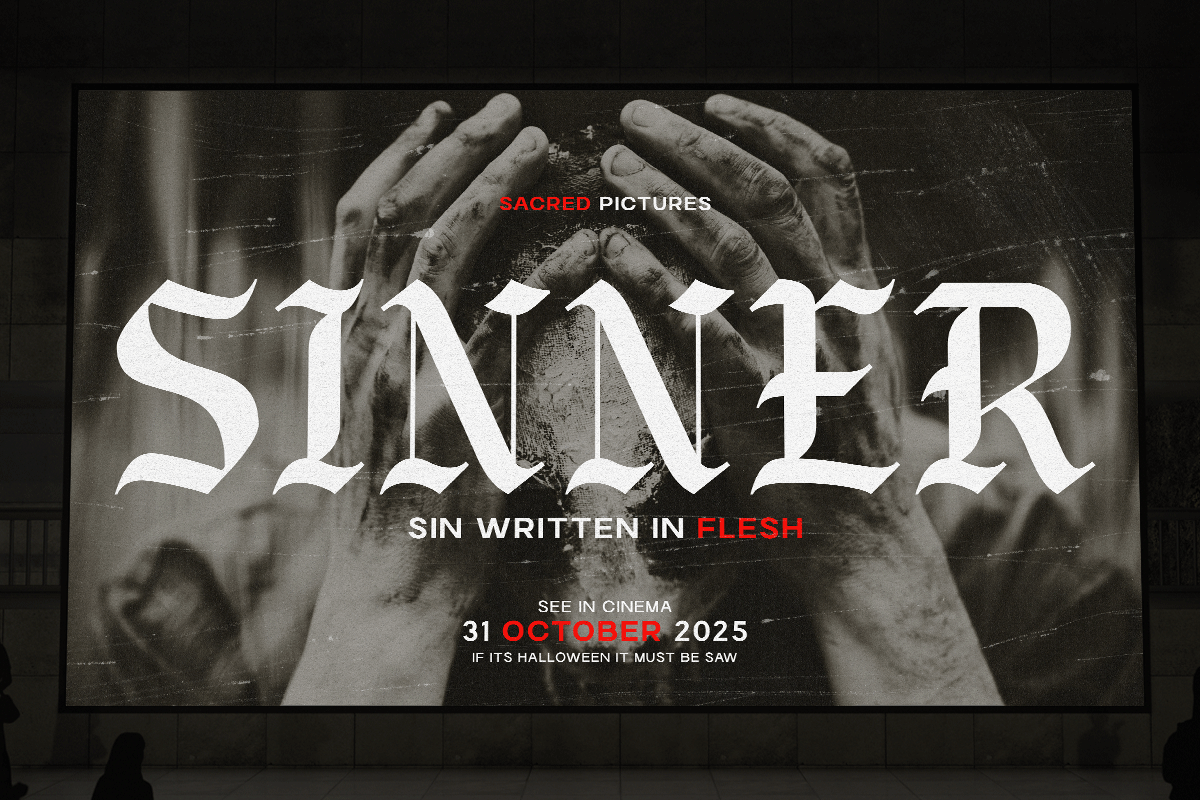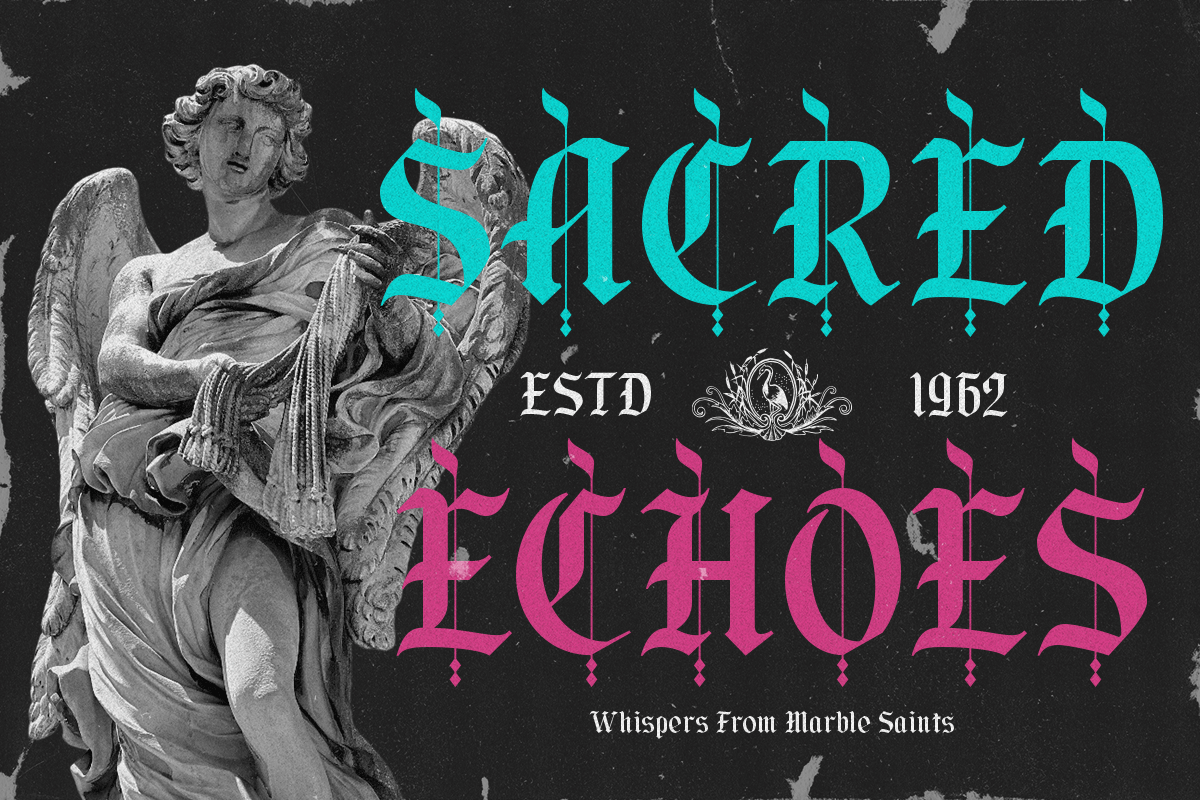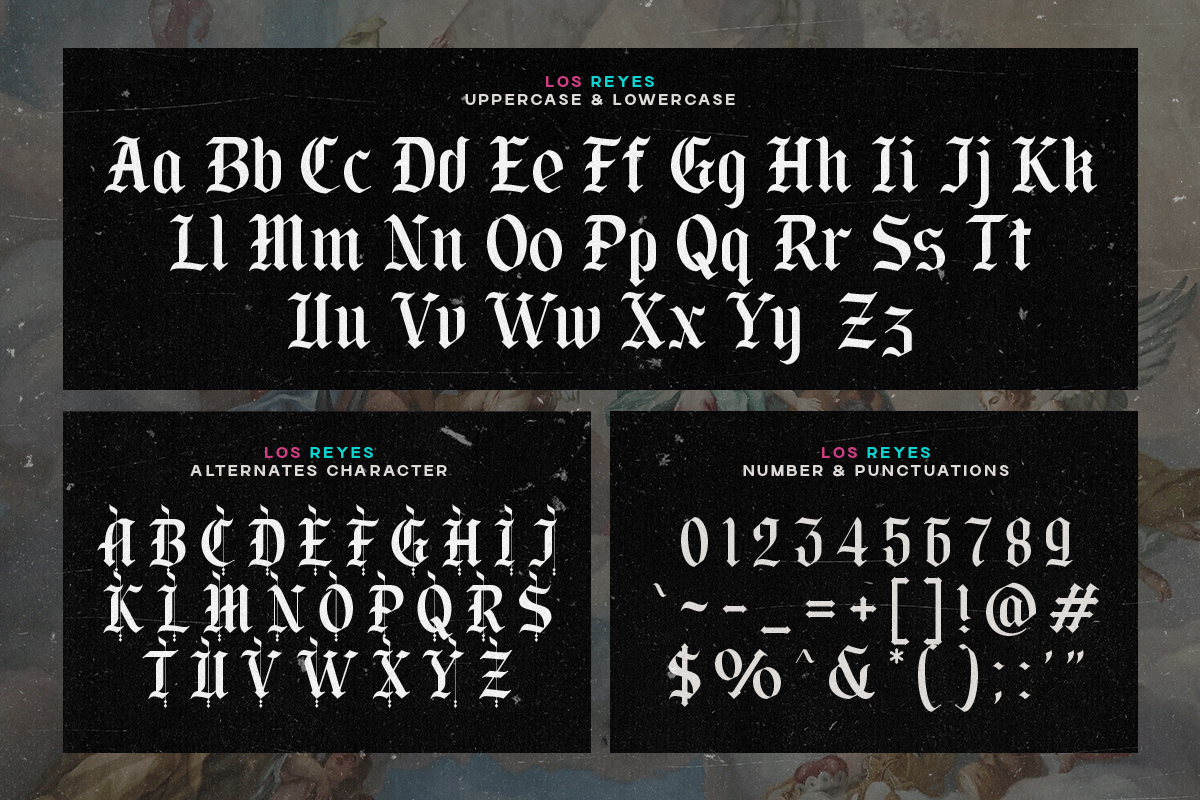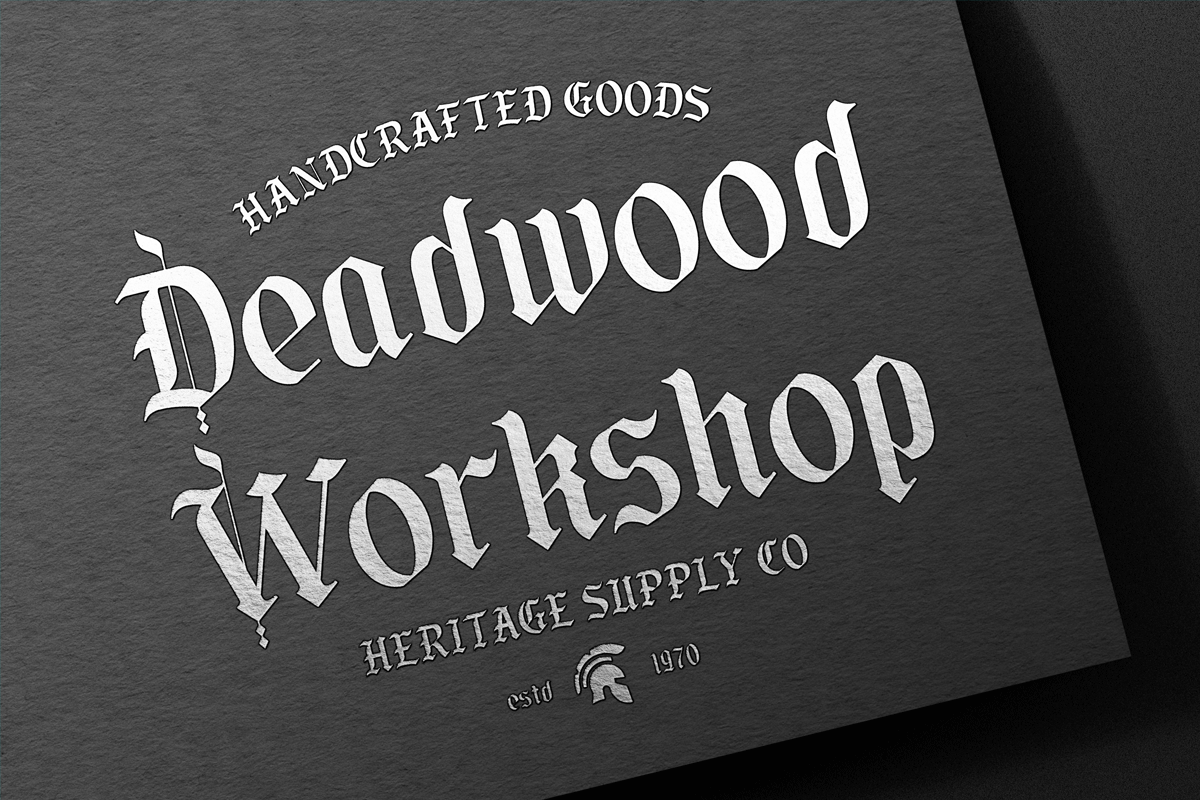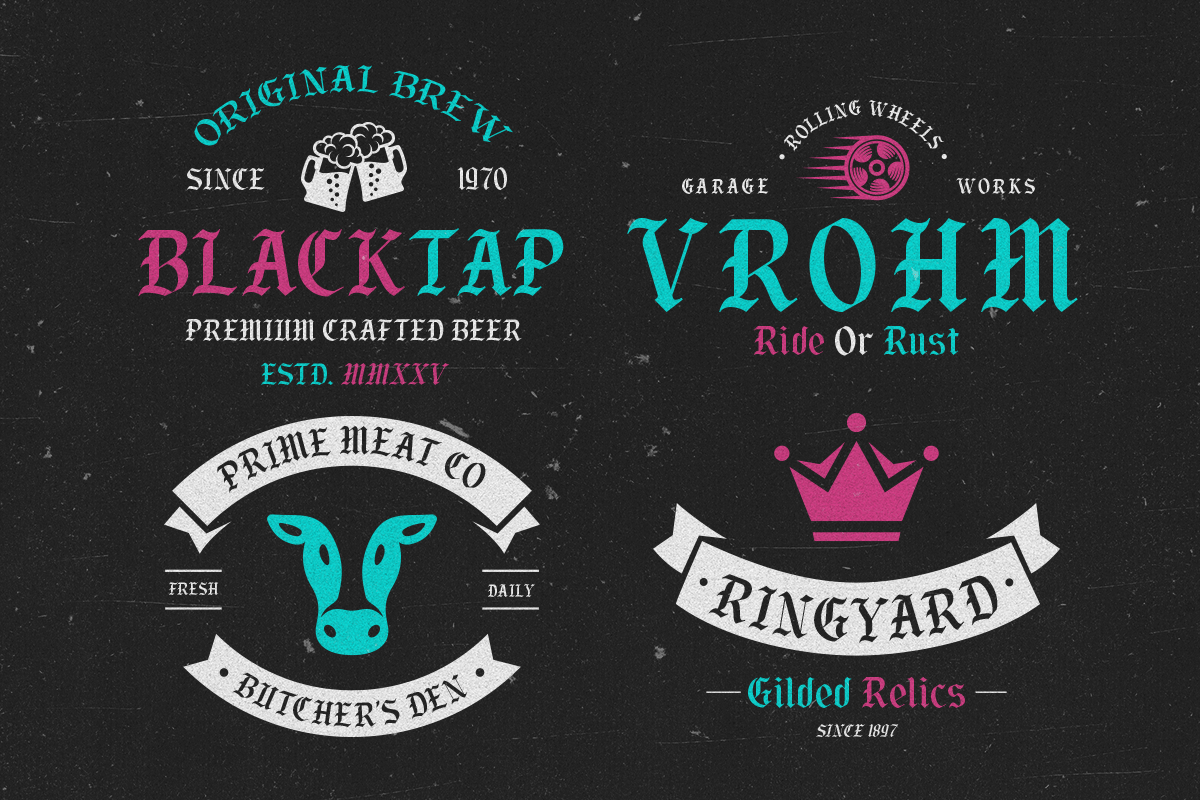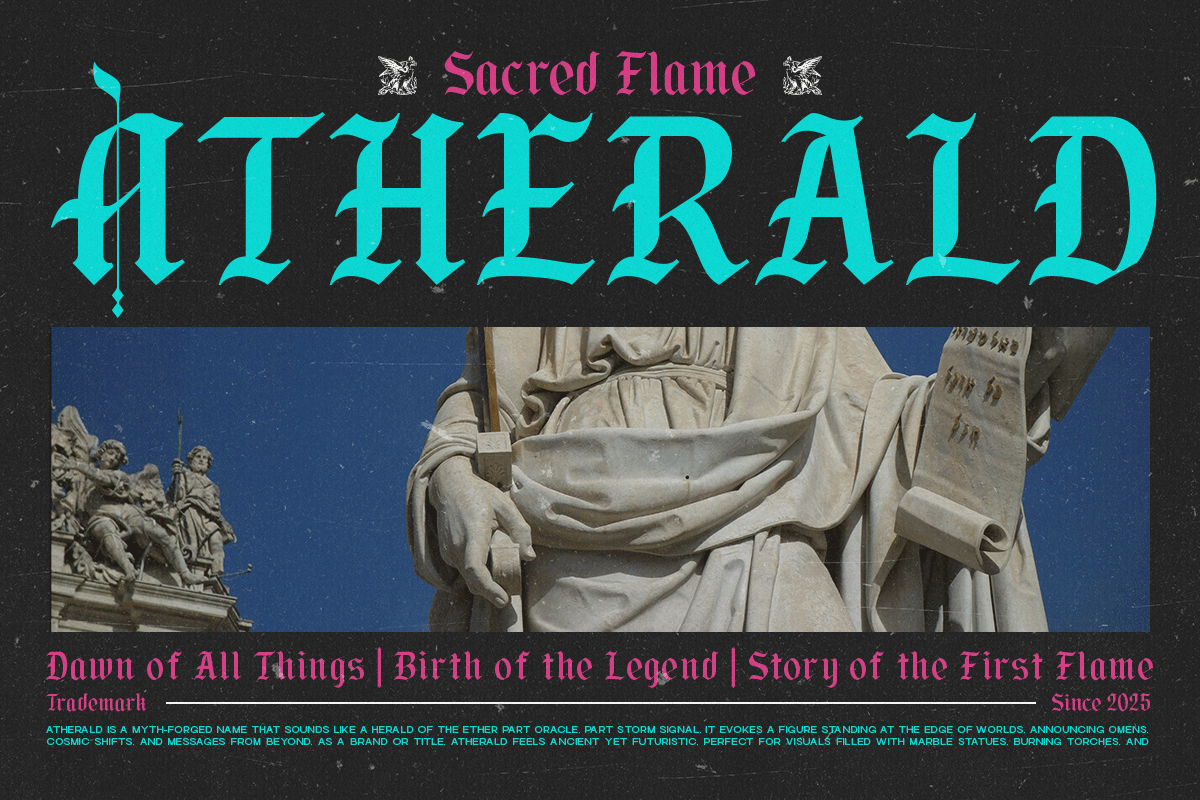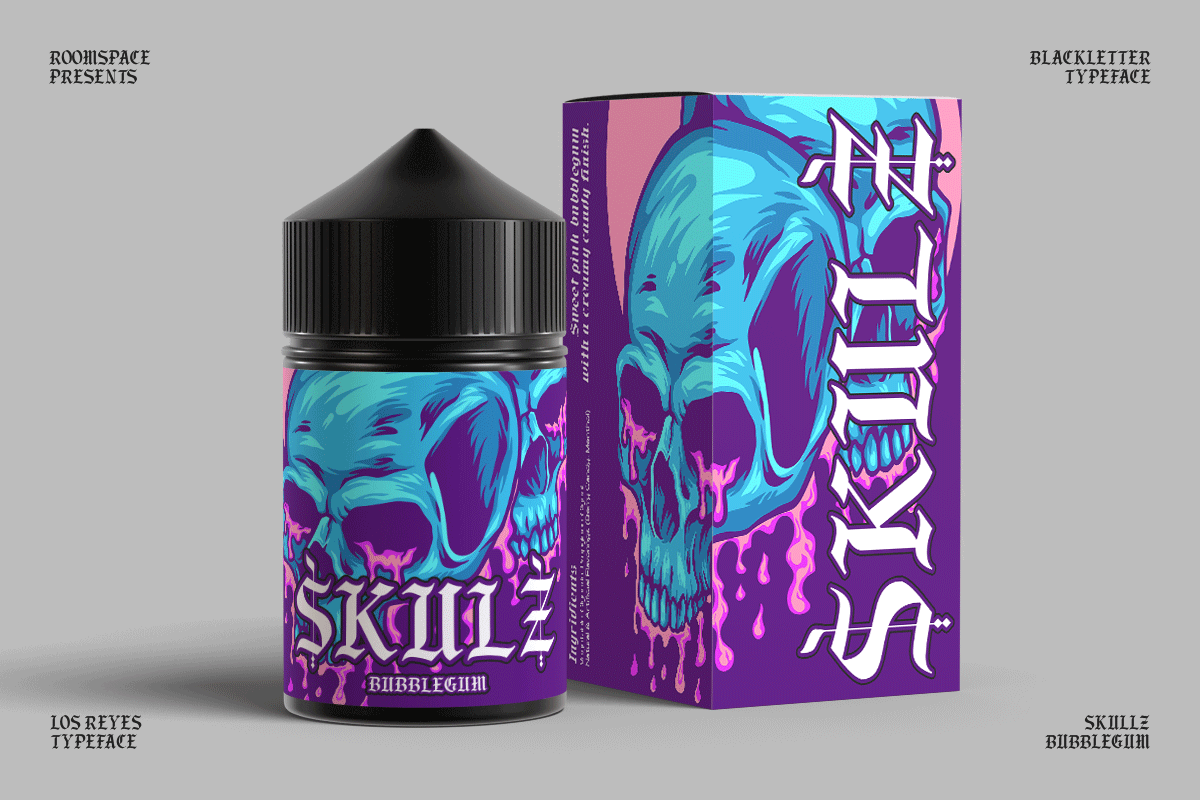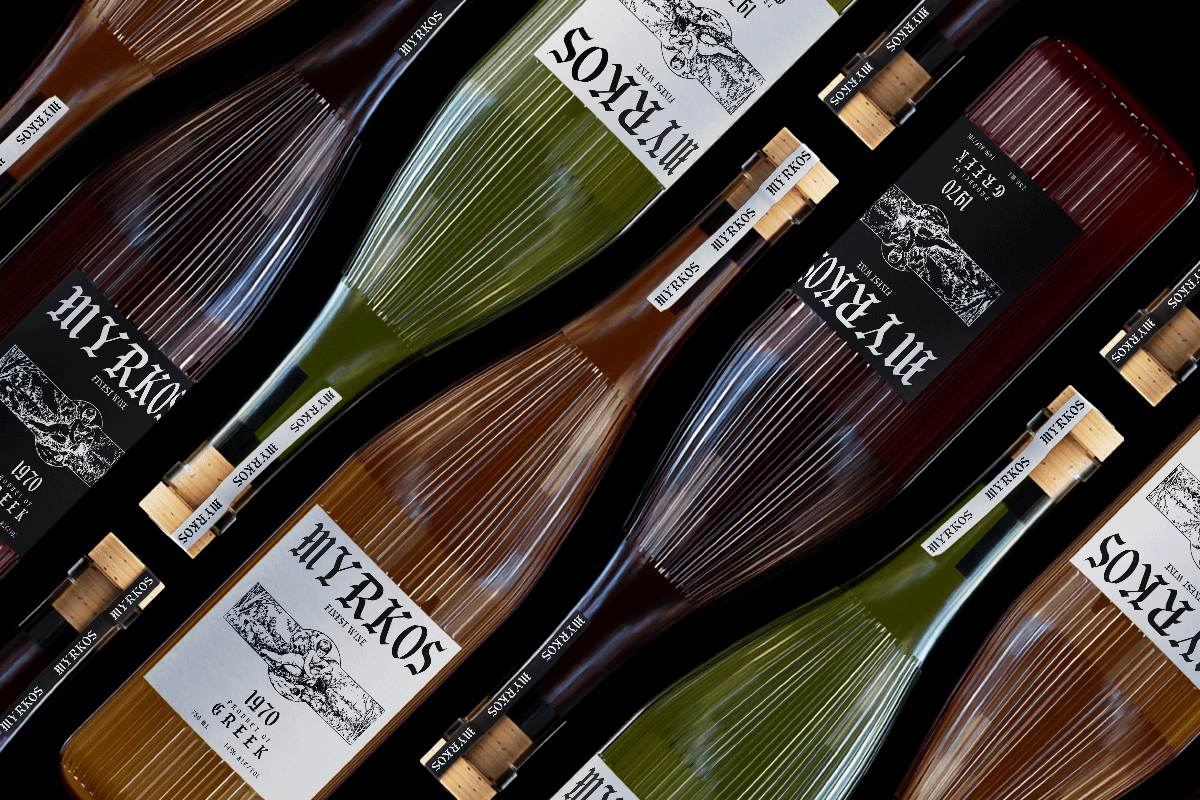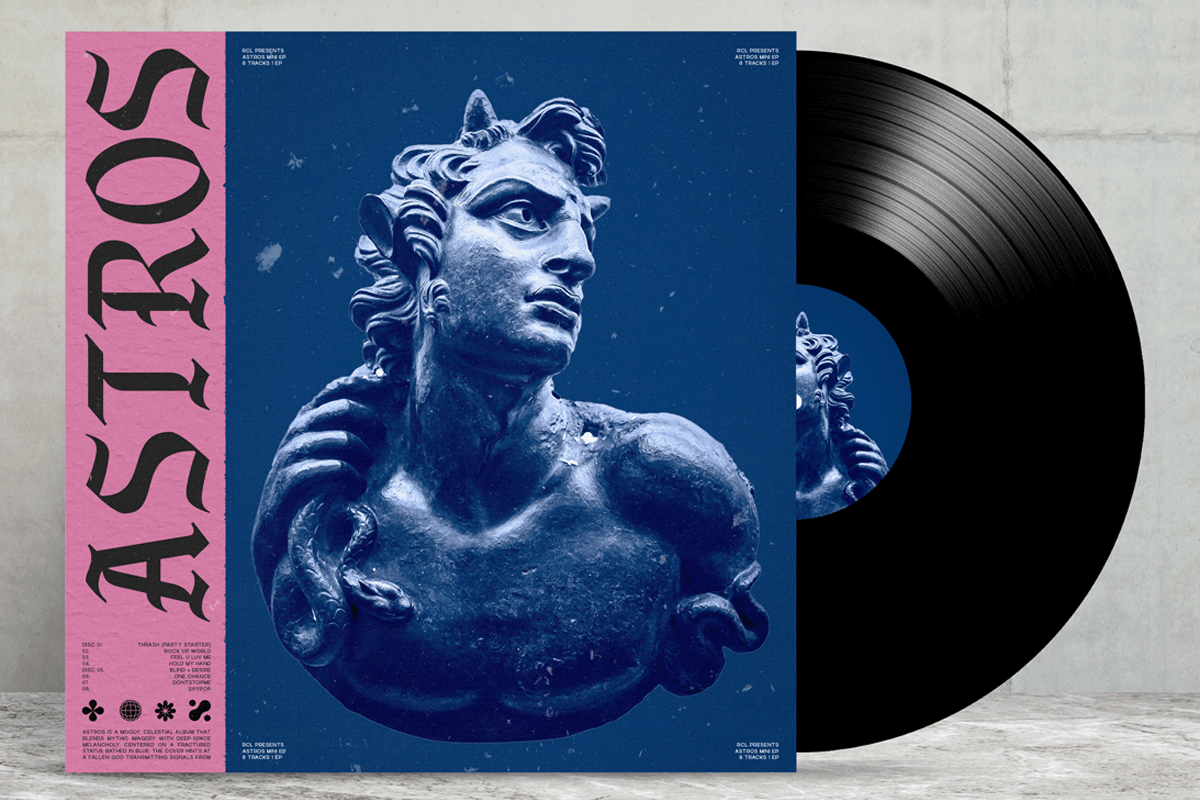
Los Reyes – Bold Gothic Blackletter
A regal, sharp, and modernized blackletter font crafted for bold branding and dramatic storytelling. Introducing Los Reyes isa bold gothic blackletter typeface inspired by medieval artistry and modern editorial design. With sharp serifs, dramatic curves, and rich contrast, this font elevates any layout with a sense of heritage and intensity. Perfect for fashion labels, tattoo studios, poster design, music artwork, and creative branding Los Reyes brings expressive gothic elegance into the modern world.
- Bold blackletter architecture
- Sharp serifs and ornamental details
Perfect For : Streetwear branding, gothic posters, book covers, tattoo graphics, packaging, illustrations, album art, editorial layouts.